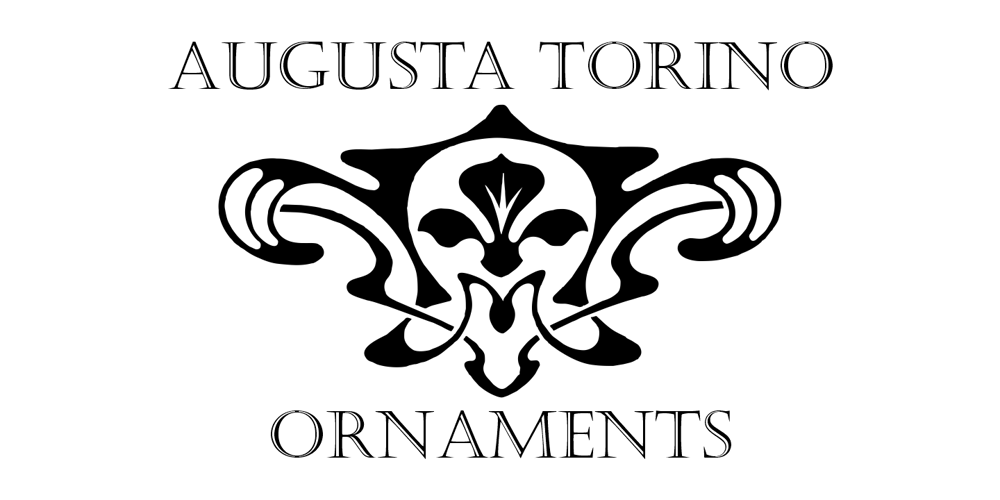
Augusta Torino Ornaments Font Family was designed by Paulo W and published by Intellecta Design. Augusta Torino Ornaments contains 1 styles and family package options. Intellecta Design, in partnership with Monocracy Types (Paulo W) launches Augusta Torino Ornaments. Classic art deco ornaments digitized from the font catalogues of “Società Augusta Torino”, also Nebiolo Fundicion, one of the most important european extinct typefoundry from last century. Soon, more fonts of that collection.